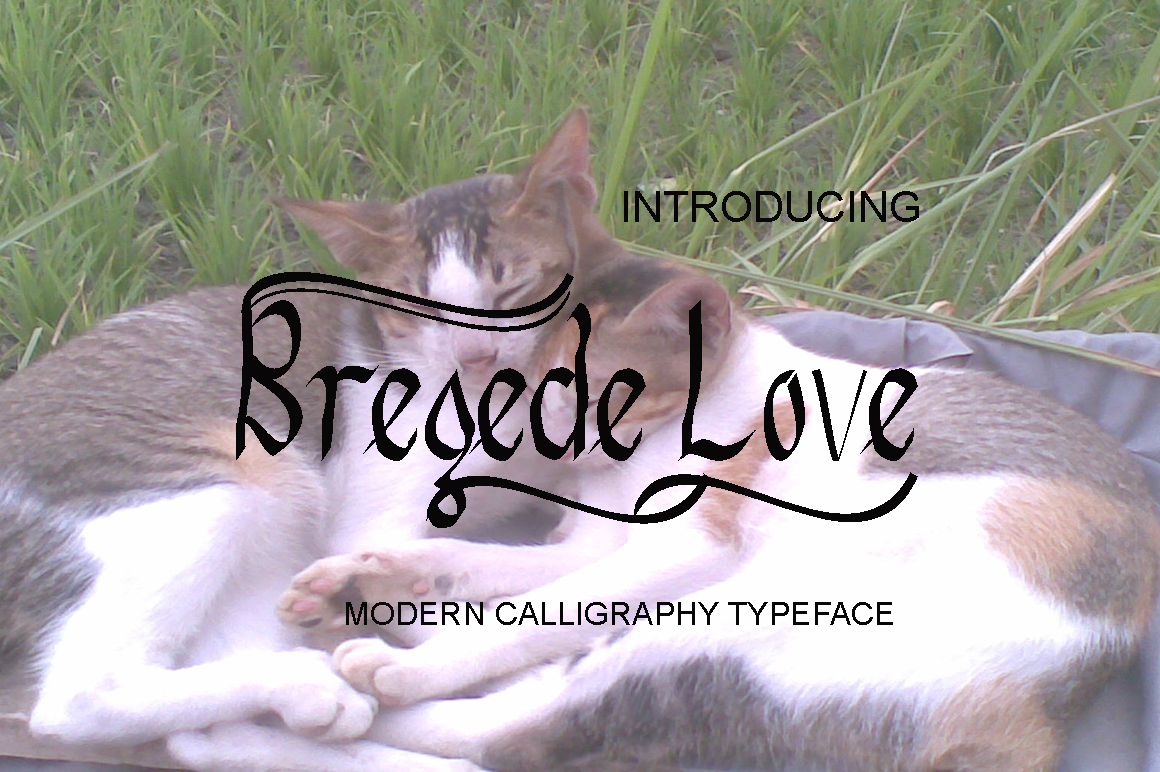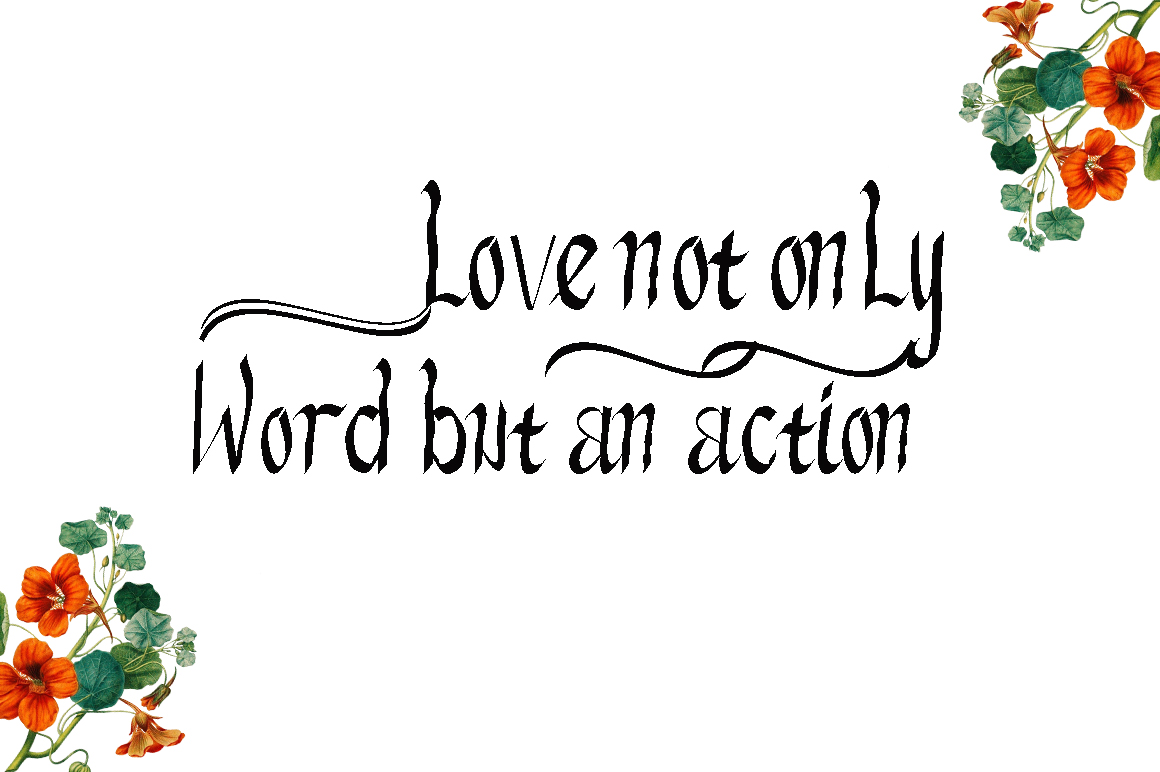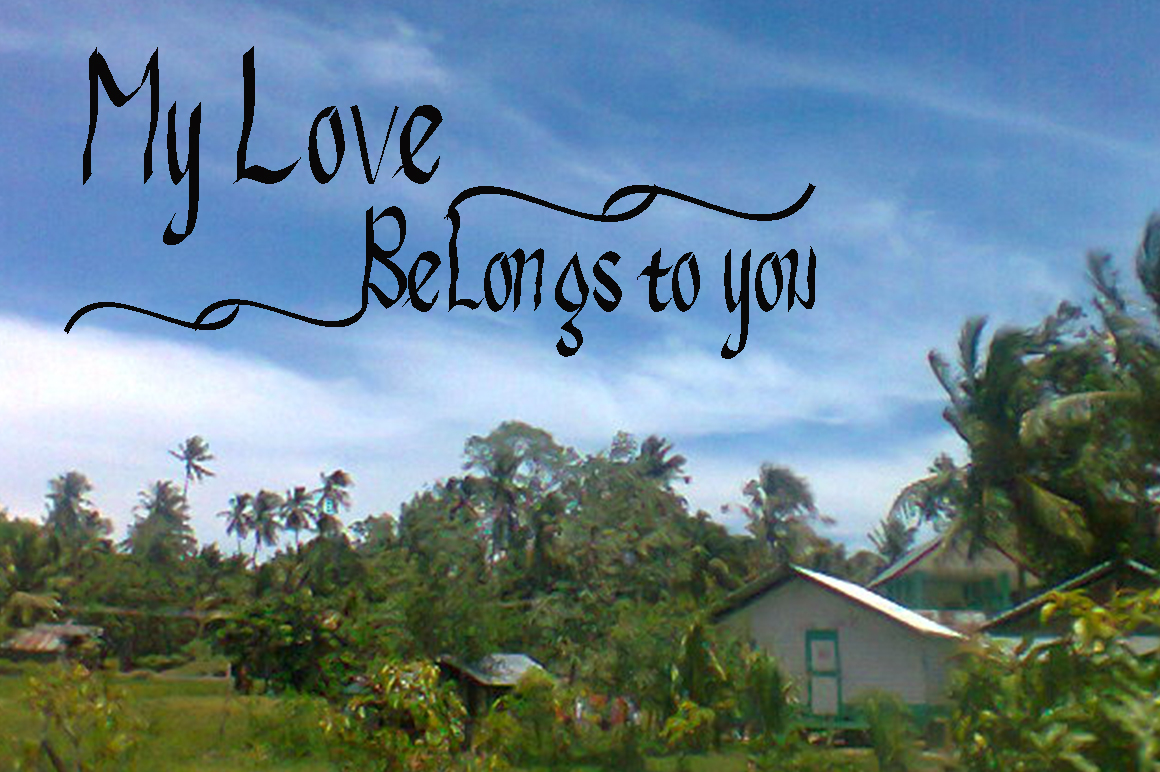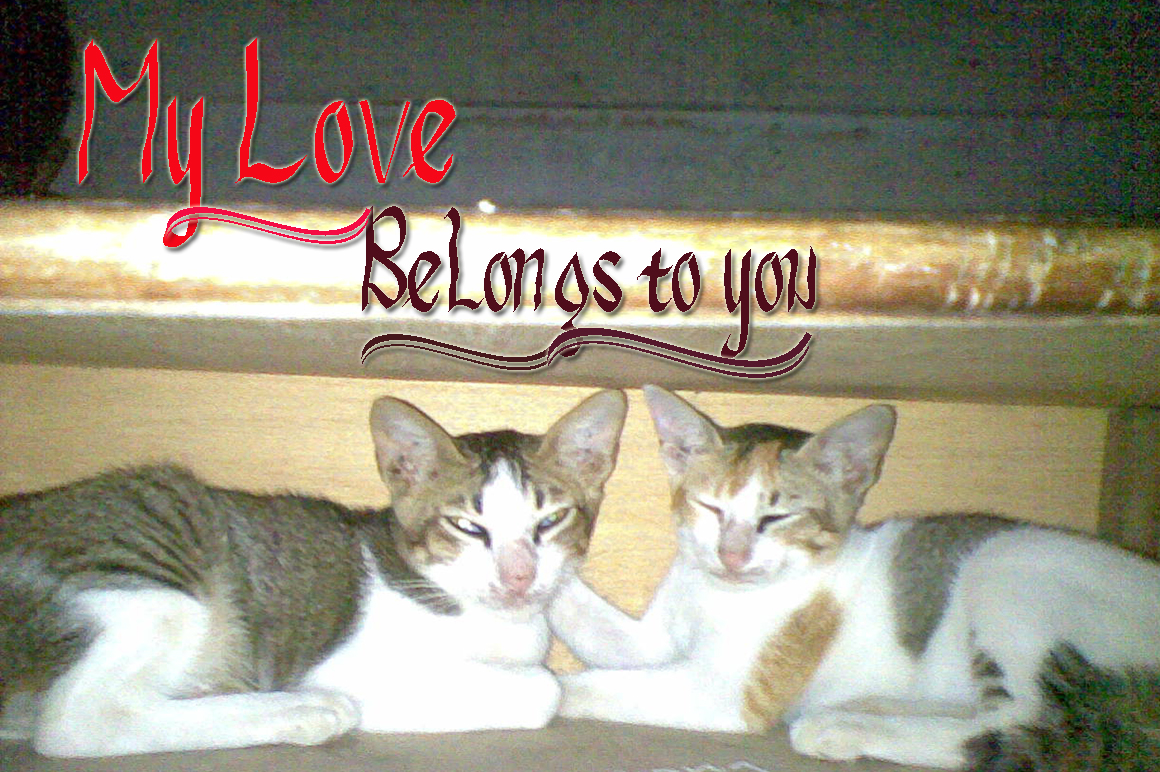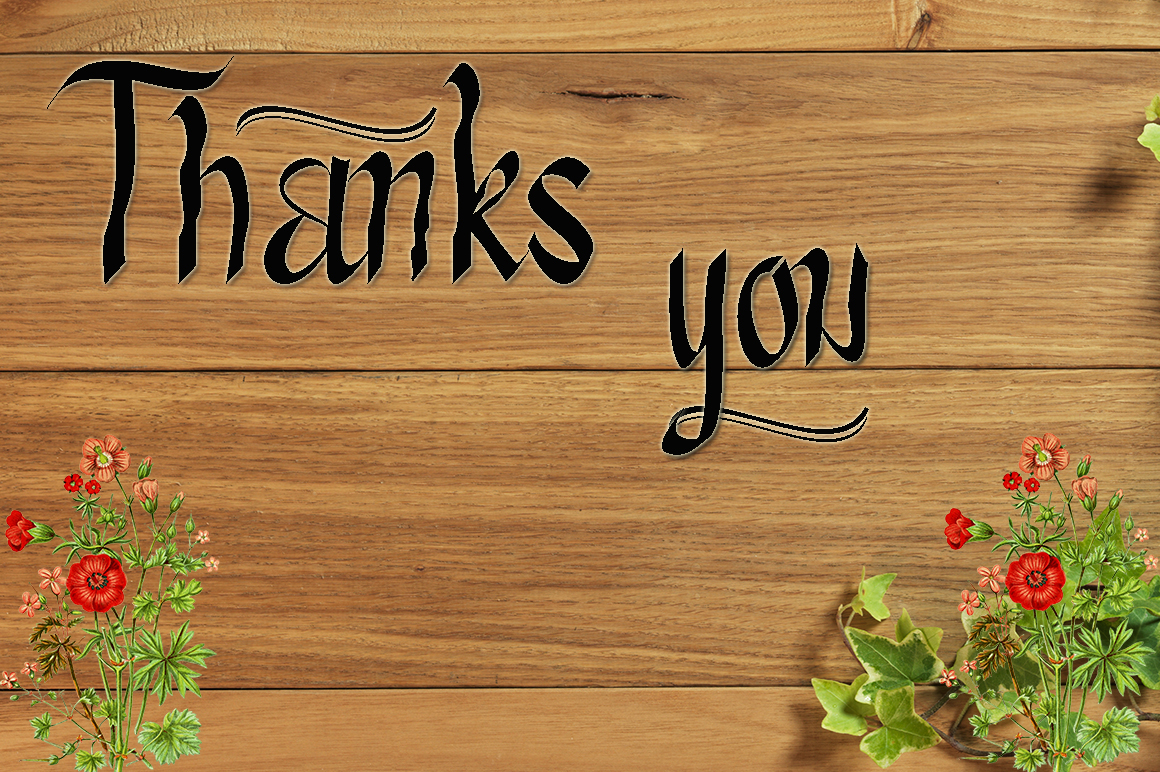
HomeScript FontsBregede Love Font Script Fonts Bregede Love Font FacebookXPinterestWhatsApp Bregede Love Font Poster 2 Bregede Love Font Poster 3 Bregede Love Font Poster 4 Bregede Love Font Poster 5 About Bregede Love Font Bregede Love is a modern calligraphy Script font created by hand. DOWNLOAD NOW People also explored Sunday Font Freiburg Font Geometi Ellia Font Wrenn Family Font Danisya Font Farmwork Font Ghuswindi Font Zettosaid Font Minimalist Font 261 0 TagsBregede Love Font Previous articleSketsa Leo FontNext articleMeilalya Font LEAVE A REPLY Cancel reply Comment: Please enter your comment! Name:* Please enter your name here Email:* You have entered an incorrect email address! Please enter your email address here Website: Save my name, email, and website in this browser for the next time I comment. Personal Use Free Bollado Personal Use Free Read more about this font Arnprior Personal Use Free Read more about this font Osaka Personal Use Free Read more about this font Dear Monita Personal Use Free Read more about this font BLOG Modern Sans-Serif Fonts That Brands Love in 2025 In 2025, modern sans-serif fonts remain a top choice for brands looking to project clarity, professionalism, and... Free Fonts Risk: Why Free Fonts Can Be Dangerous for Designers Using Fonts in Digital Marketing: Tips to Strengthen Your Brand Identity How to Install and Use Fonts on Windows, macOS, and Web Projects